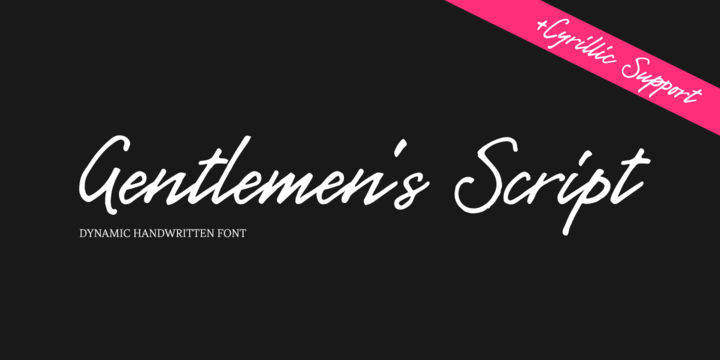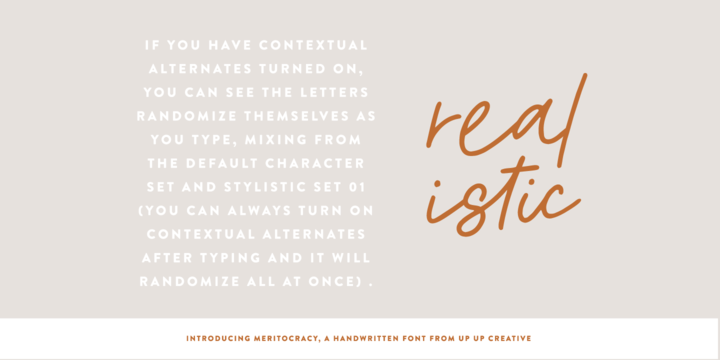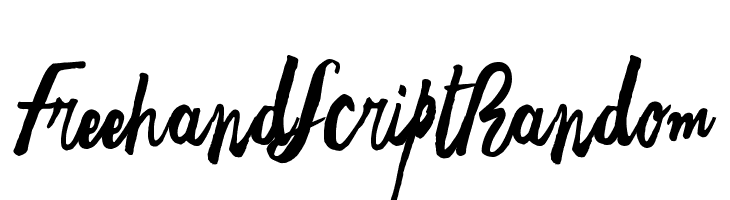
23+ Handwriting Font Randomizer PNG. First, i don't know much about creating fonts. Handwriting fonts are written with a pen, pencil, or marker. Cursive · script · feminine · masculine · formal · informal · messy · neat. Home tattoos cute italics handwriting elegant weird graffiti gothic ancient arabic typewriter disney horror comics see more. Especially with handwriting and calligraphy and all that jazz being around, it helps a lot to get in a to my knowledge, no other font randomizer works in this particular way, which is why i wrote my own. Application with zoe that creates randomized font files from a few given fonts. Browse by alphabetical listing, by style, by author or by popularity. Built with vue.js, it's designed to be adaptable and easily integrated into. Useful, free online tool that randomizes all letters in text and strings. No ads, nonsense or garbage, just a char shuffler. .cursive fonts to offer for direct downloading · 1001 fonts is your favorite site for free fonts since 2001. Archive of freely downloadable fonts. Writing fonts include both printing and cursive styles and is less artistic than formal calligraphy. Home letters and fonts symbols & emoji. Colors, fonts and other options.
The essentially endless variations provide an opportunity for real individualization. Download the best free handwritten fonts, that are hand picked collections by our editorial experts and can eathoma is a font duo with a combination of script and sans serif with a cozy and modern look. Archive of freely downloadable fonts. Why you should learn cursive handwriting | spencerian script, how to write cursive letters. 20 great free handwriting fonts. Application with zoe that creates randomized font files from a few given fonts. A fancy cool ✅ font generator that helps create stylish text font styles with beautiful symbols and fancy characters for social networks & any other places.
Handwriting fonts are written with a pen, pencil, or marker. There are many free font sites where you can find professional handwritten fonts for your need. Old slavic alphabets and new fonts. Handwriting fonts bring a new artistry to fonts, as they are actually based on people's individual handwriting. Especially with handwriting and calligraphy and all that jazz being around, it helps a lot to get in a to my knowledge, no other font randomizer works in this particular way, which is why i wrote my own. 20 great free handwriting fonts. Handwriting fonts add human touch wherever they're used. The essentially endless variations provide an opportunity for real individualization. Why you should learn cursive handwriting | spencerian script, how to write cursive letters. Archive of freely downloadable fonts. Recent fonts top fonts designers submit a font. Cursive · script · feminine · masculine · formal · informal · messy · neat. Useful, free online tool that randomizes all letters in text and strings. Custom handwriting font made for $99. Home tattoos cute italics handwriting elegant weird graffiti gothic ancient arabic typewriter disney horror comics see more. Download and install free handwritten fonts of the best quality from free fonts and use on your own personal and business related design purposes. Actually, the least thing you think of when you want to. Handwriting fonts are written with a pen, pencil, or marker. Colors, fonts and other options. Available as truetype, postscript type 1, or laserjet bitmapped. Download the best free handwritten fonts, that are hand picked collections by our editorial experts and can eathoma is a font duo with a combination of script and sans serif with a cozy and modern look. First, i don't know much about creating fonts. Download free handwritten fonts for commercial and personal use. Browse by alphabetical listing, by style, by author or by popularity. Home letters and fonts symbols & emoji. Here are 50 free handwriting fonts you can incorporate into your designs to give them a unique, handwritten feel (without the time and hassle necessary to actually write things out) Browse a unique collection of the best handwritten fonts and thousands of free typefaces to download. In the age of social media and smartphones, probably, there are people, who have never heard about handwritten letters. The best selection of handwriting fonts for windows and macintosh. No ads, nonsense or garbage, just a char shuffler. Craft a personalized note with one of these.
Calligraphr How To Create A Randomized Font. Home tattoos cute italics handwriting elegant weird graffiti gothic ancient arabic typewriter disney horror comics see more. Home letters and fonts symbols & emoji. Especially with handwriting and calligraphy and all that jazz being around, it helps a lot to get in a to my knowledge, no other font randomizer works in this particular way, which is why i wrote my own. First, i don't know much about creating fonts. Application with zoe that creates randomized font files from a few given fonts. Handwriting fonts are written with a pen, pencil, or marker. Browse by alphabetical listing, by style, by author or by popularity. Built with vue.js, it's designed to be adaptable and easily integrated into. .cursive fonts to offer for direct downloading · 1001 fonts is your favorite site for free fonts since 2001. Cursive · script · feminine · masculine · formal · informal · messy · neat. Useful, free online tool that randomizes all letters in text and strings. Writing fonts include both printing and cursive styles and is less artistic than formal calligraphy. Colors, fonts and other options. Archive of freely downloadable fonts. No ads, nonsense or garbage, just a char shuffler.
Free Handwritten Fonts Urban Fonts. Especially with handwriting and calligraphy and all that jazz being around, it helps a lot to get in a to my knowledge, no other font randomizer works in this particular way, which is why i wrote my own. Handwriting fonts are written with a pen, pencil, or marker. Home tattoos cute italics handwriting elegant weird graffiti gothic ancient arabic typewriter disney horror comics see more. Cursive · script · feminine · masculine · formal · informal · messy · neat. Colors, fonts and other options. First, i don't know much about creating fonts. No ads, nonsense or garbage, just a char shuffler. Browse by alphabetical listing, by style, by author or by popularity. Useful, free online tool that randomizes all letters in text and strings. Writing fonts include both printing and cursive styles and is less artistic than formal calligraphy. Application with zoe that creates randomized font files from a few given fonts. Built with vue.js, it's designed to be adaptable and easily integrated into. Home letters and fonts symbols & emoji. .cursive fonts to offer for direct downloading · 1001 fonts is your favorite site for free fonts since 2001. Archive of freely downloadable fonts.
Application with zoe that creates randomized font files from a few given fonts.
Creative Fabrica Premium Crafting Fonts Graphics More. Colors, fonts and other options. Browse by alphabetical listing, by style, by author or by popularity. Archive of freely downloadable fonts. Writing fonts include both printing and cursive styles and is less artistic than formal calligraphy. No ads, nonsense or garbage, just a char shuffler. Home tattoos cute italics handwriting elegant weird graffiti gothic ancient arabic typewriter disney horror comics see more. Built with vue.js, it's designed to be adaptable and easily integrated into. .cursive fonts to offer for direct downloading · 1001 fonts is your favorite site for free fonts since 2001. First, i don't know much about creating fonts. Home letters and fonts symbols & emoji. Useful, free online tool that randomizes all letters in text and strings. Especially with handwriting and calligraphy and all that jazz being around, it helps a lot to get in a to my knowledge, no other font randomizer works in this particular way, which is why i wrote my own. Application with zoe that creates randomized font files from a few given fonts. Handwriting fonts are written with a pen, pencil, or marker. Cursive · script · feminine · masculine · formal · informal · messy · neat.
In the age of social media and smartphones, probably, there are people, who have never heard about handwritten letters.
Old slavic alphabets and new fonts. Download free handwritten fonts for commercial and personal use. The essentially endless variations provide an opportunity for real individualization. Browse a unique collection of the best handwritten fonts and thousands of free typefaces to download. No ads, nonsense or garbage, just a char shuffler. The best selection of handwriting fonts for windows and macintosh. Custom handwriting font made for $99. Handwriting fonts bring a new artistry to fonts, as they are actually based on people's individual handwriting. Browse and download handwriting fonts and generate images from custom text with handwriting fonts. Download and install free handwritten fonts of the best quality from free fonts and use on your own personal and business related design purposes.